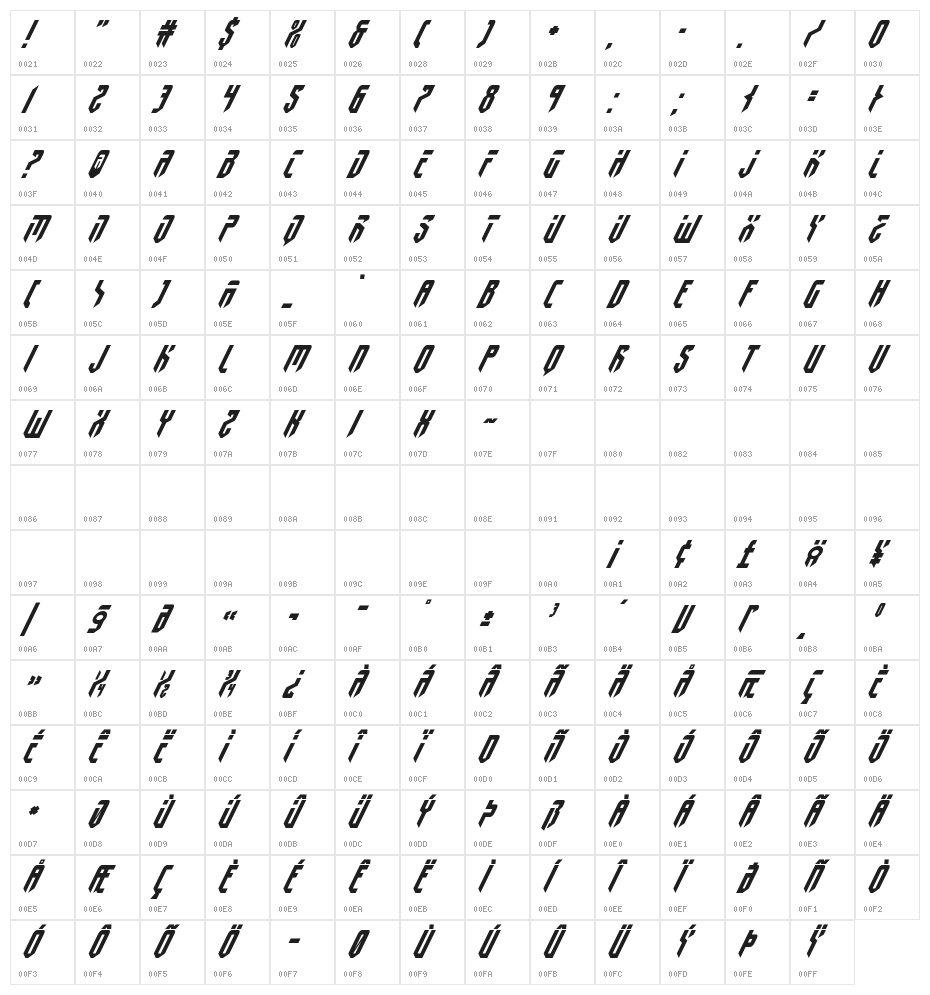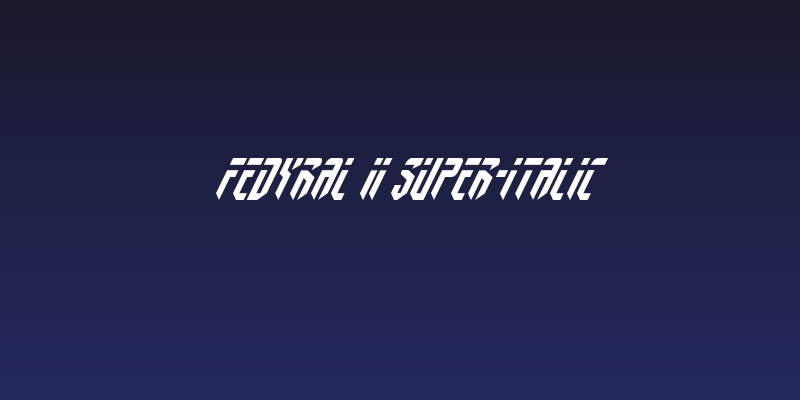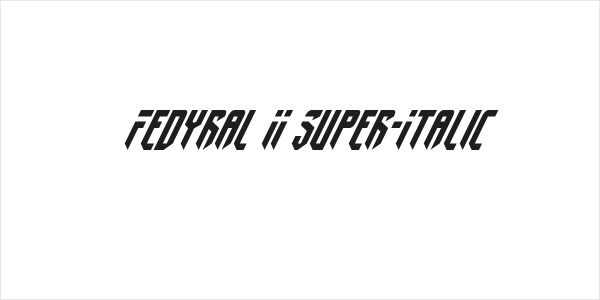
Fedyral II Super-Italic Font
Fedyral II Super-Italic Description
This font features a bold and dynamic design with a strong italic slant, giving it a sense of motion and energy. The characters are angular and geometric, with sharp edges and a futuristic appearance. The uppercase and lowercase letters maintain a consistent style, with a uniform width and height that creates a cohesive look. The numbers and special characters are designed to match the overall aesthetic, ensuring a seamless integration across different uses. This font is ideal for projects that require a modern and edgy feel, such as technology branding, sports team logos, or dynamic headlines.
| Proposed Projects | Ideal for technology branding, sports team logos, dynamic headlines, and modern design projects. |